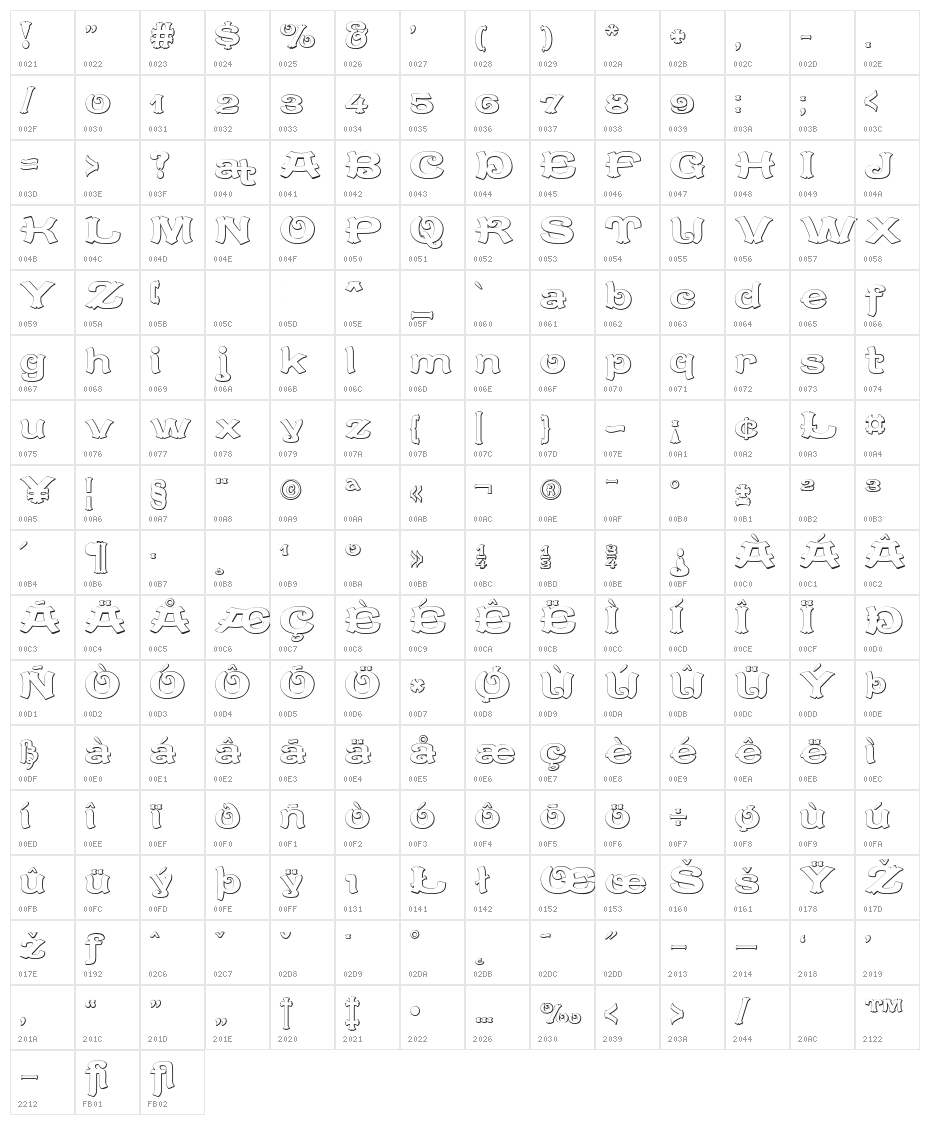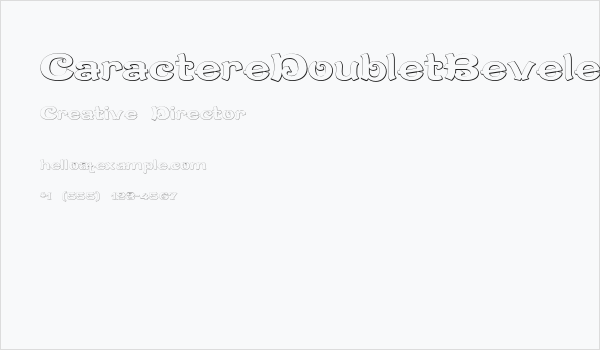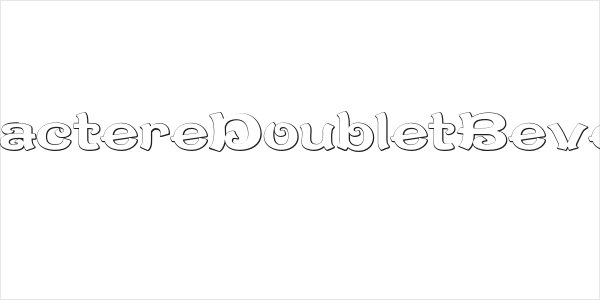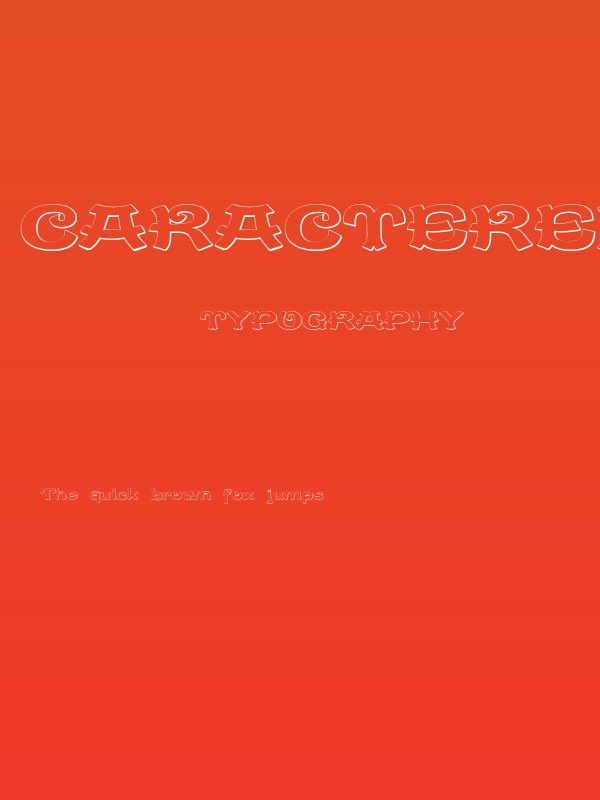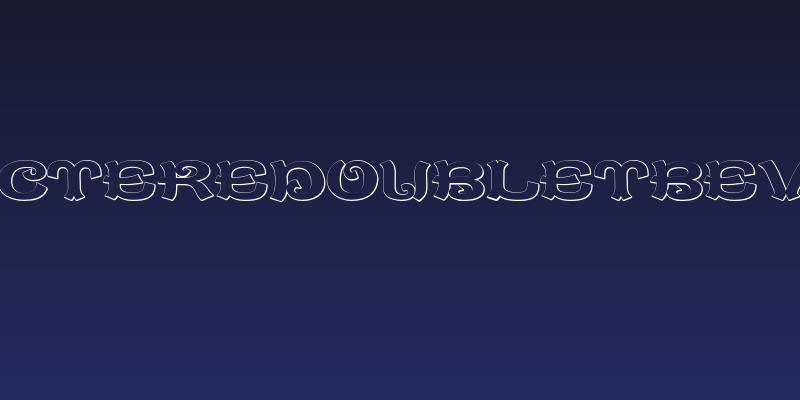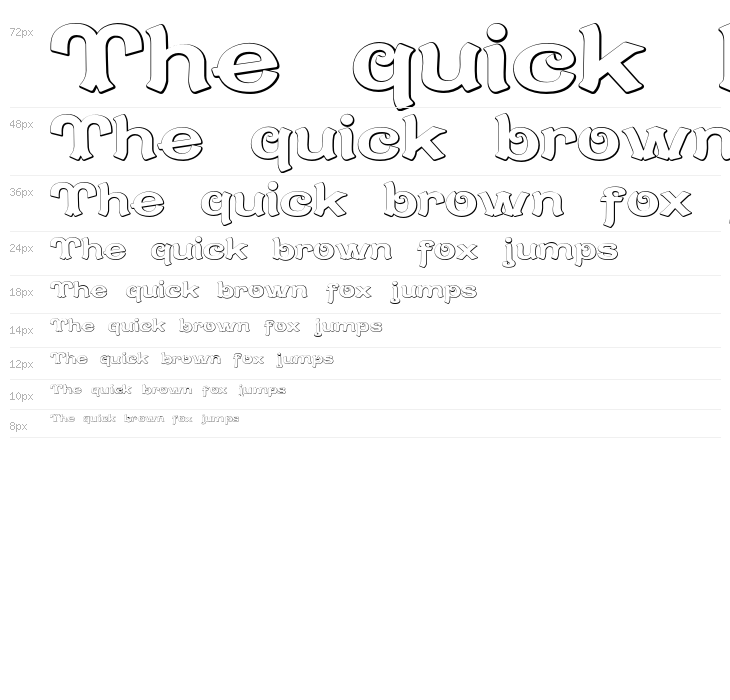
CaractereDoubletBeveled Font
CaractereDoubletBeveled Description
This font features a unique beveled design that gives each character a three-dimensional appearance. The bold outlines and shadowing create a striking effect, making it ideal for attention-grabbing headlines and titles. The uppercase and lowercase letters maintain a consistent style, with rounded edges and a playful yet sophisticated look. Numbers and special characters are equally stylized, ensuring a cohesive appearance across all text elements. The font's decorative nature makes it suitable for creative projects that require a touch of elegance and flair.
| Proposed Projects | Ideal for posters, logos, book covers, and any design project that requires a bold, eye-catching typeface. |